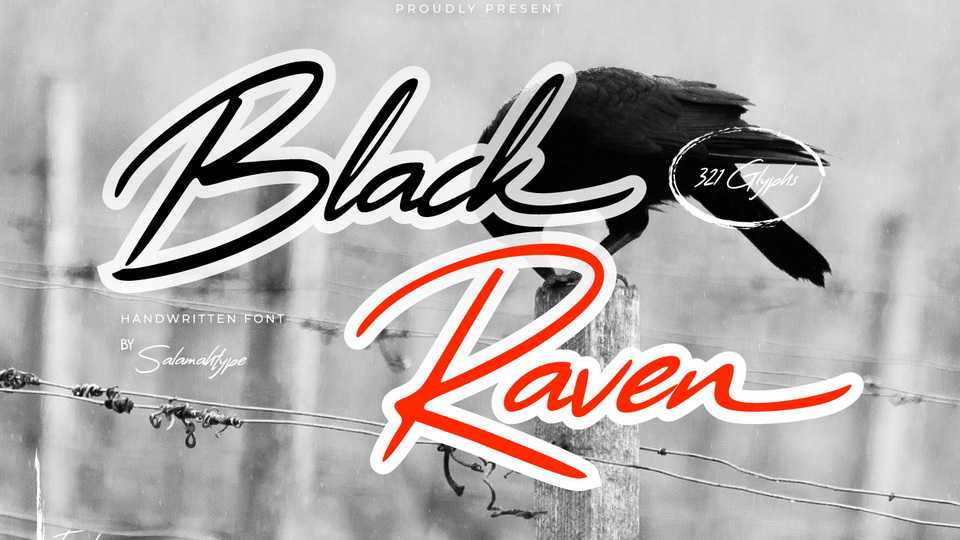
Download Black Raven font, a semi script typeface with handwritten style. Black Raven is inspired by extreme and challenging sports where this font looks like bold and strong ink strokes, also suitable for anyone who likes adventure themes.